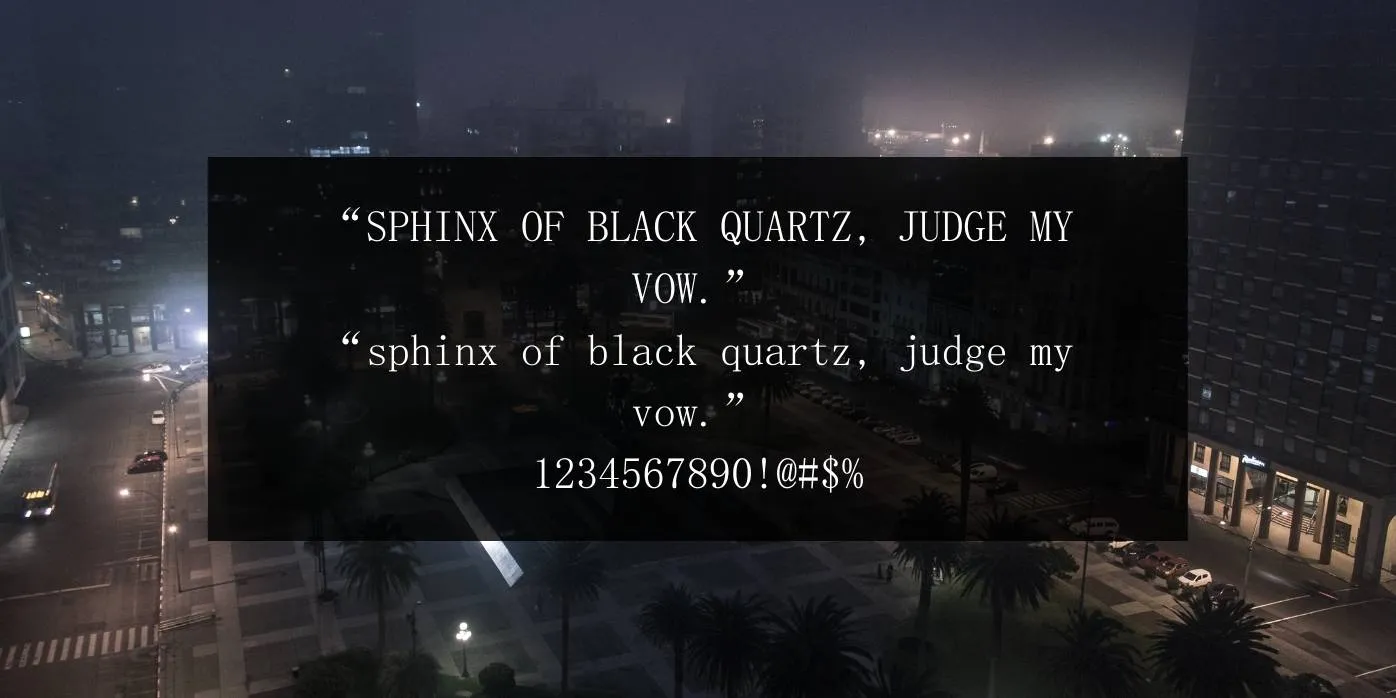
Fangsong Font
Fangsong Font is a very famous typeface that belongs to the Serif font category. This tremendous font family was designed by Adobe. This awesome font comprises two weights including Regular and Bold. Both of these weights contain 740 characters including Basic Latin, Latin-1 Supplement, Latin Extended-A, Kangxi Radicals, and many more.
Fangsong Typeface is an extremely popular typeface that can be used for both body text as well as headlines. The main aim while designing this font was to create a typeface that would be easy on the eyes and would also have great readability. It is not from Google font. Its bold features make it perfect for many designs.
You can also use its alternative albertus mt font for other designs. It is also used for Windows 10. This classy font has a very unique style which makes it stand out from the rest of the fonts in its category. This typeface is perfect for those who are looking for something different yet stylish.